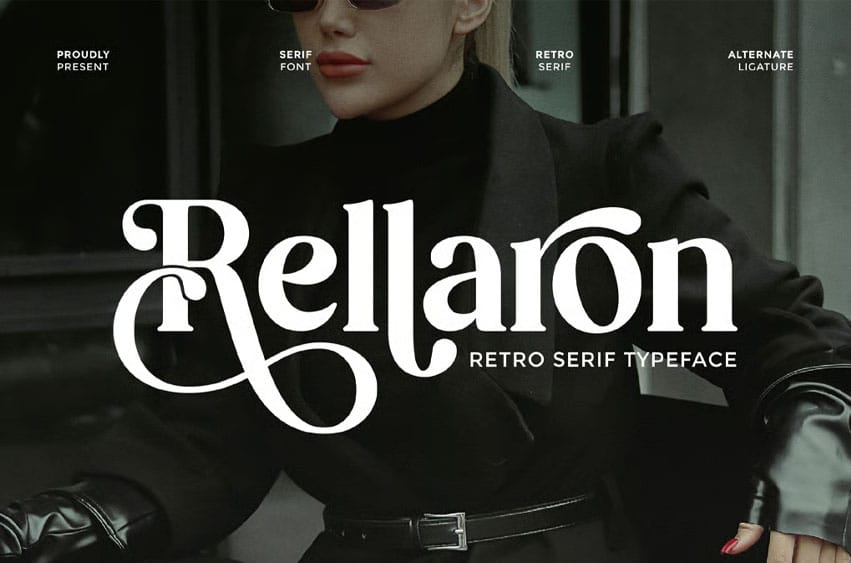
Rellaron Font is a stylish retro serif typeface that brings a perfect blend of vintage charm and modern elegance. With its bold curves, flowing swashes, and elegant ligatures, Rellaron captures a timeless sophistication that stands out in any design.
This typeface is crafted to evoke a sense of class and nostalgia, making it ideal for logos, magazine titles, branding, packaging, posters, and fashion-related projects.
Perfect for:
Corporate branding, tech startups, business websites, clean editorial layouts, pitch decks, and modern product packaging.